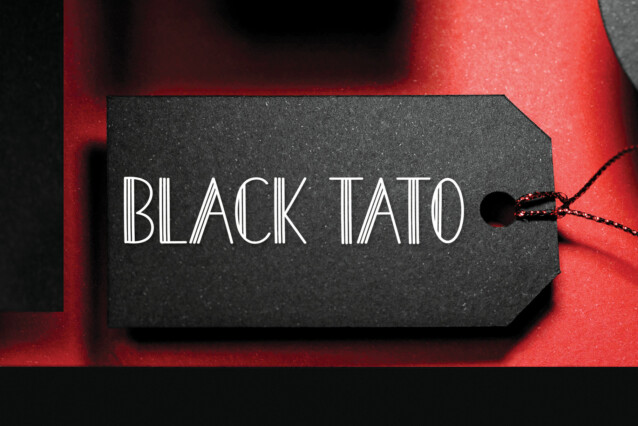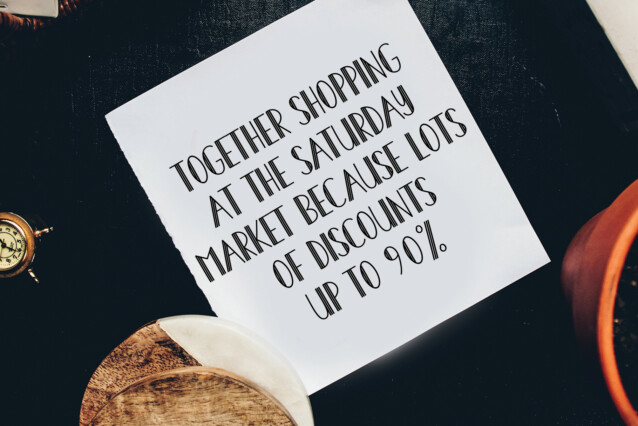
Aircraft Display Font
Aircraft Display Font is a modern and linear display typeface. Its latest style letters are perfect for wall displays, wedding invitations, social media post logos, advertisements, product packaging, product designs, labels, photography, watermarks, invitations, and stationery.